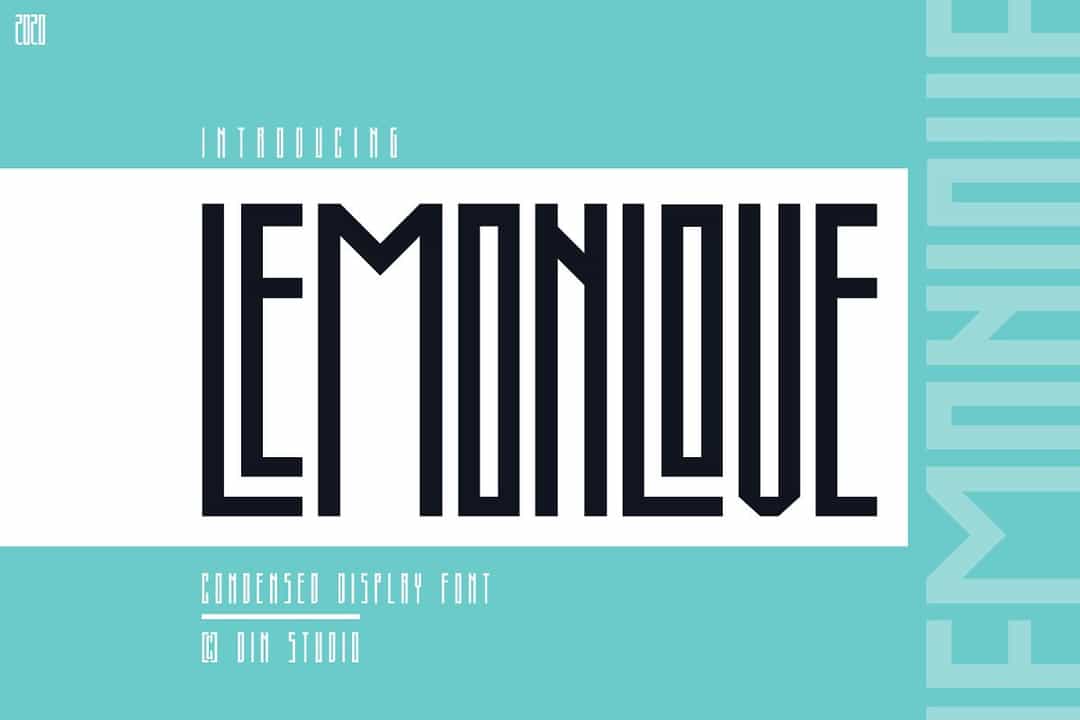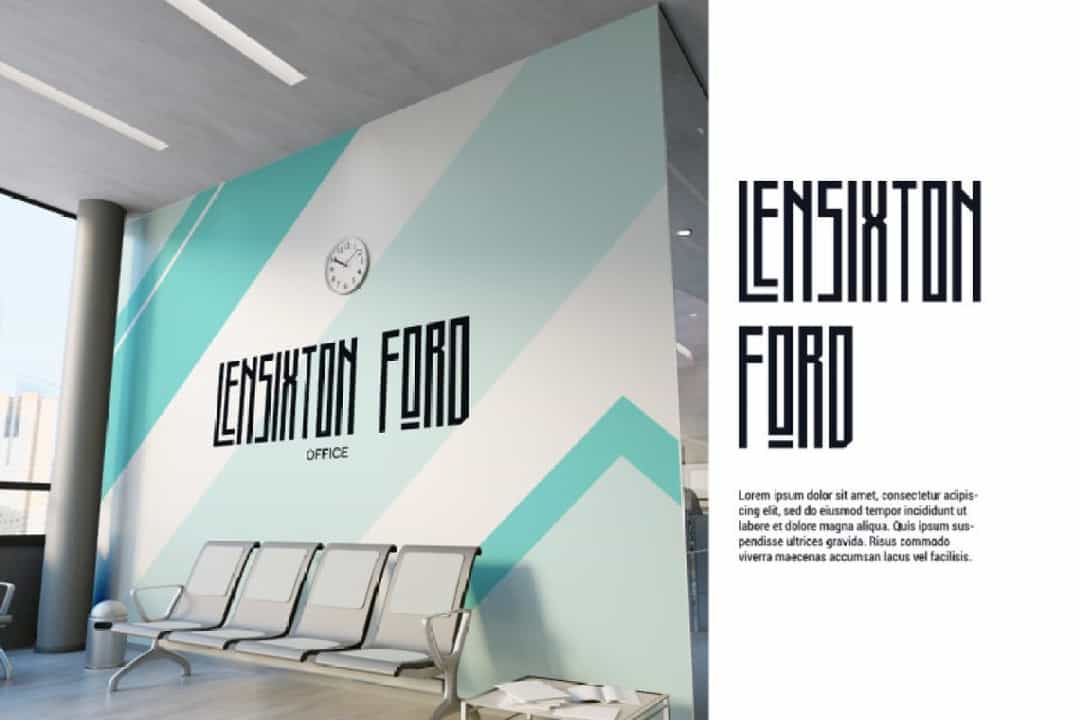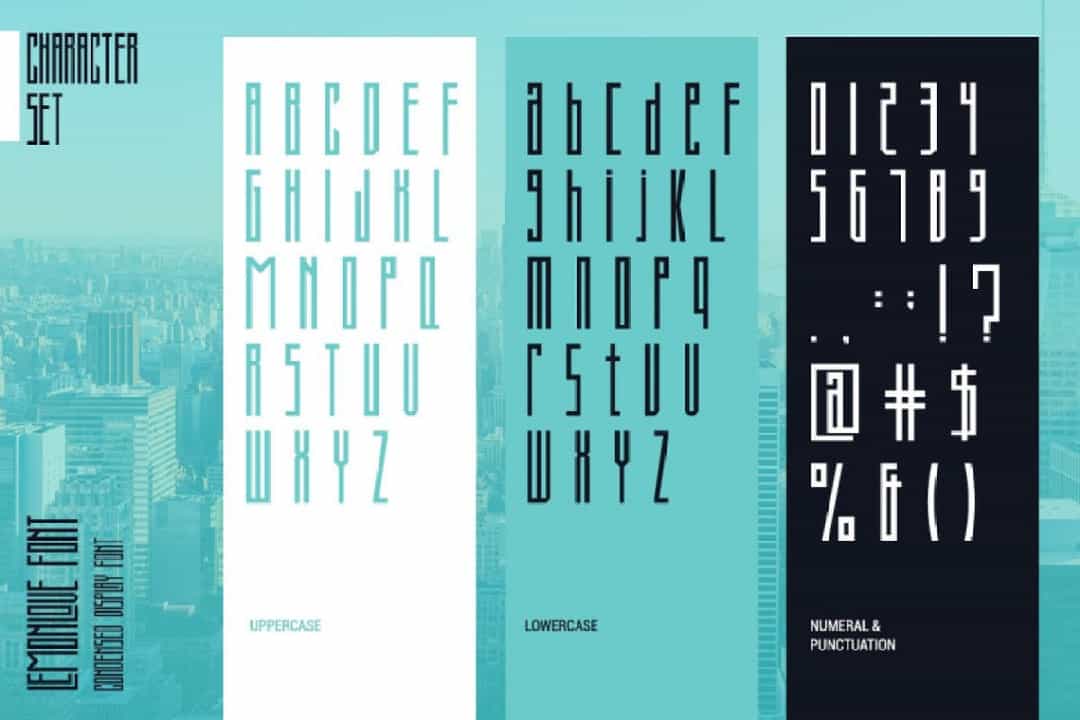
Lemonlove is a large font display that has been developed to give precisely the impression of modern aesthetics and themes and is ideal for use in logotypes and branding packages, quotes, books and T-shirt designs.